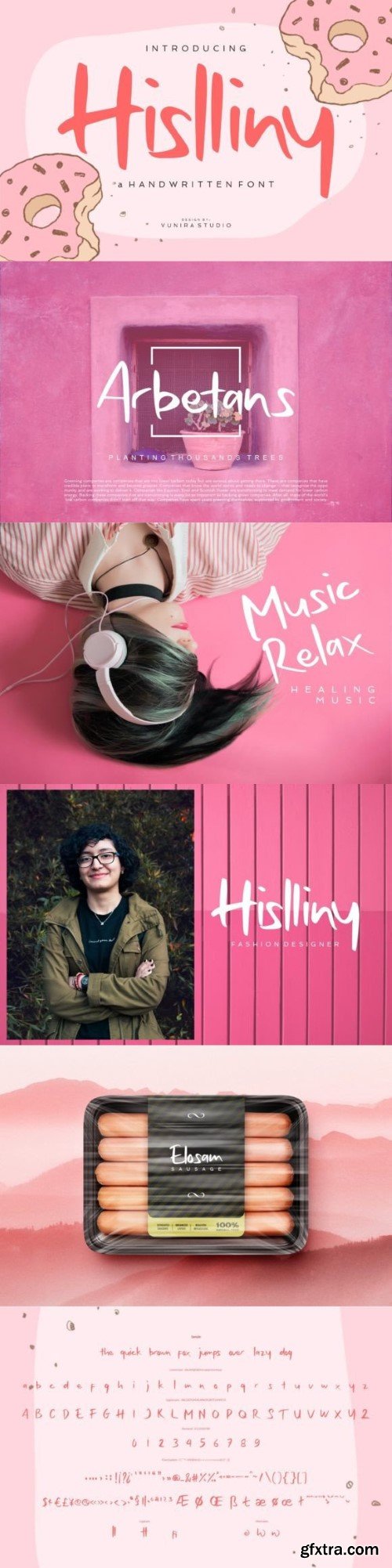
Hislliny – Handwritten is a friendly and casual handwritten font. Its simple charm adds a personal touch to your projects. Perfect for notes, cards, or any design where a warm, handcrafted feel is desired. Enjoy the effortless elegance of Hislliny for a touch of handwritten authenticity.